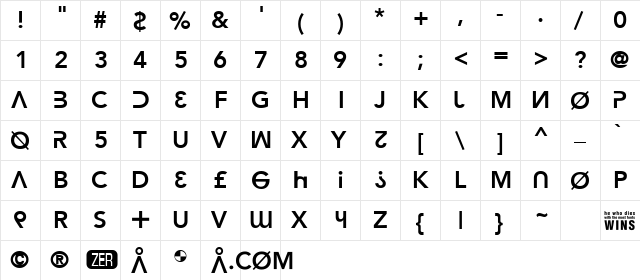
Hacker Argot Regular
Design Context for Hacker Argot Typeface
Hacker Argot is a composed and adaptable typeface that performs quietly and consistently across a wide range of design contexts.